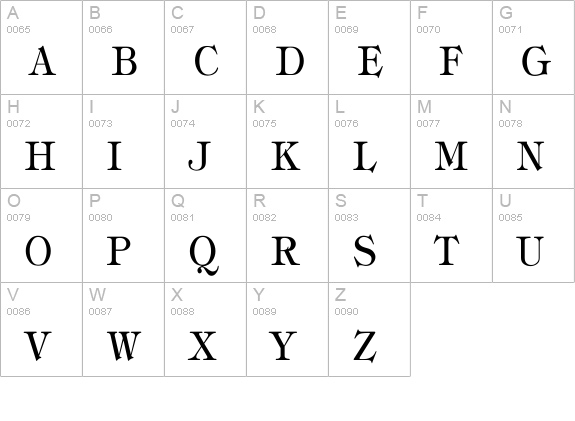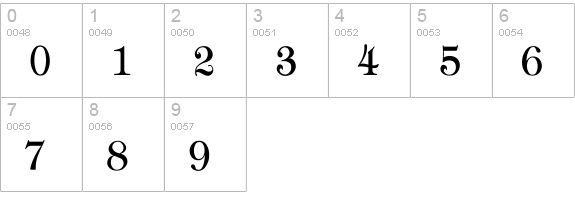
Tiffany-Normal Th Font Details
Tiffany-Normal Th is the standard, neutral variant in the Tiffany typeface family \xE2\x80\x94 well suited to general body text, paragraphs, and standard typographic work.
Tiffany-Normal Th is a stunning font that effortlessly captures the essence of elegance and sophistication. With its sleek and timeless design, this font is perfect for adding a touch of class to any project. The curves and lines of Tiffany-Normal Th are expertly crafted, creating a harmonious balance between legibility and beauty. Each letter is meticulously designed, resulting in a font that is both visually pleasing and easy to read. One of the most impressive aspects of Tiffany-Normal Th is that it is available for free. That's right, you can freely download this exquisite font at FontsMarket.com. Whether you're a professional designer or simply someone who appreciates the beauty of typography, Tiffany-Normal Th is a must-have addition to your font collection. This font is versatile and can be used in various design projects. From invitations and wedding stationary to logos and branding materials, Tiffany-Normal Th adds a touch of sophistication that will leave a lasting impression. The attention to detail in Tiffany-Normal Th is evident in every aspect of the font, from its graceful letterforms to its subtle flourishes. It truly embodies the essence of timeless beauty and is sure to elevate any design to new heights. Don't miss out on the opportunity to enhance your design projects with this exquisite font. Download Tiffany-Normal Th for free at FontsMarket.com and experience the beauty and elegance it brings to your creations.